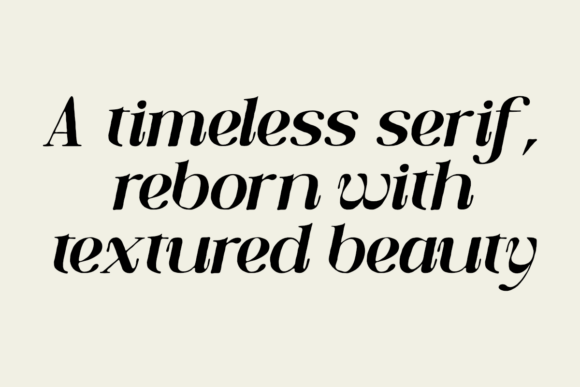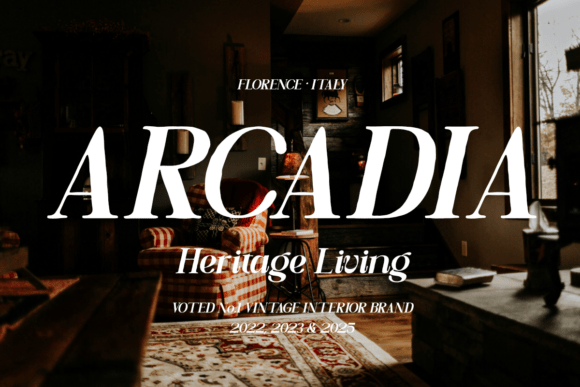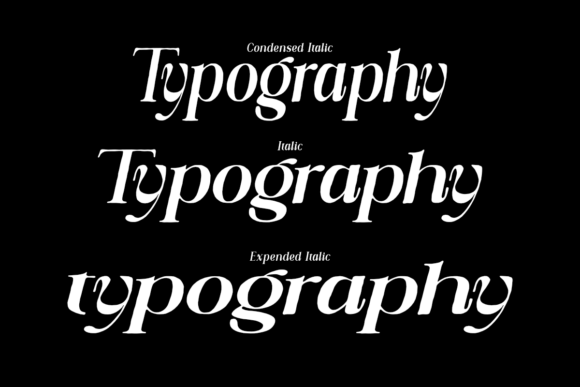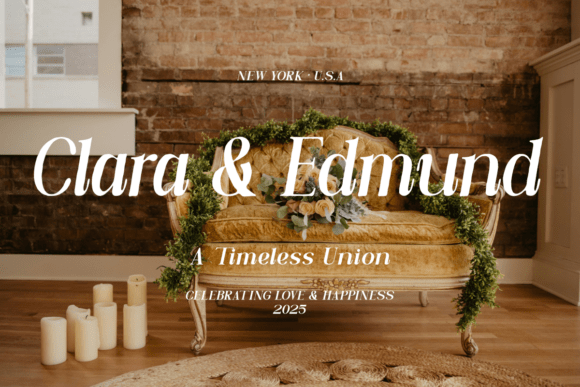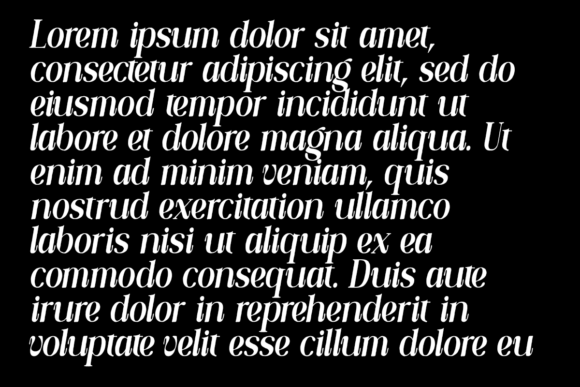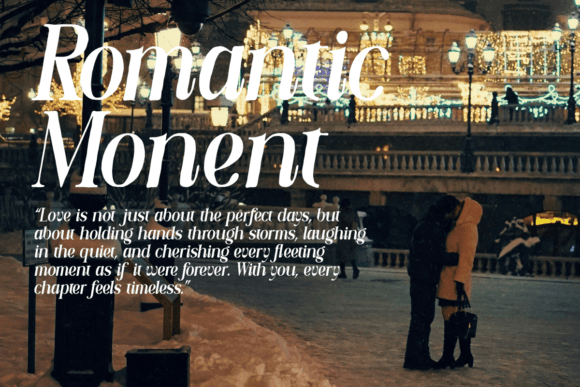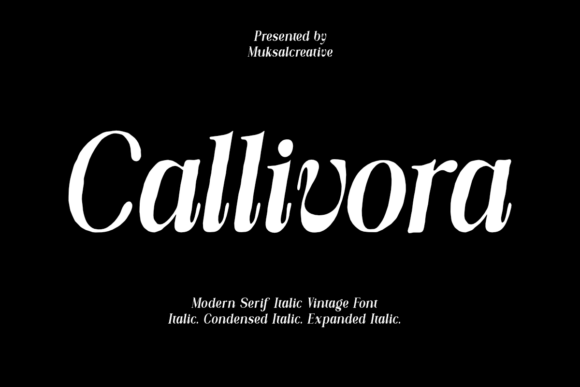
Introducing Callivora Italic Font: Elevate Your Designs with Elegance and Timeless Beauty
Are you searching for a font that exudes elegance, warmth, and a touch of nostalgia? Look no further than Callivora, a stunning textured italic serif font designed to bring sophistication and artistry to your branding projects. With its smooth curves, hand-drawn textured details, and classic-meets-contemporary design, Callivora is the perfect choice for designers and crafters seeking to add a touch of timeless beauty to their work.
The Inspiration Behind Callivora
Callivora’s design is rooted in the desire to evoke a sense of romantic nostalgia while staying modern and versatile. The font’s creator aimed to craft a typeface that would capture the essence of vintage elegance while remaining relevant for today’s design trends. The result is a font that is both classic and contemporary, perfect for a wide range of design applications.
Key Features of Callivora Font
So, what makes Callivora font so special? Here are some of its key features:
- Lively Character: Subtle textures add depth and authenticity, giving your words a more emotional and handcrafted feel.
- Classic Meets Contemporary: Elegant serif forms paired with italic flair capture a vintage spirit while remaining relevant for today’s design trends.
- Versatile Use: Ideal for wedding invitations, luxury branding, editorial layouts, packaging, vintage posters, and artistic social media quotes.
Why Choose Callivora Font?
With Callivora font, you can elevate your brand’s visual identity and add a touch of sophistication to your designs. Here are just a few reasons why designers and crafters love Callivora:
- Unique Texture: Callivora’s hand-drawn textured details give your designs a distinctive, handcrafted feel that sets them apart from the crowd.
- Timeless Elegance: The font’s classic serif forms and elegant lines ensure that your designs will remain timeless and stylish for years to come.
- Versatility: Callivora font is perfect for a wide range of design applications, from wedding invitations and luxury branding to editorial layouts and packaging.
- Pair with Other Fonts: Callivora font pairs beautifully with other serif and sans-serif fonts. Experiment with different combinations to find the perfect look for your design.
- Play with Texture: Callivora’s textured details can add depth and interest to your designs. Experiment with different texture combinations to find the perfect look.
- Use for Headings and Body Text: Callivora font is perfect for both headings and body text. Use it to create visually appealing layouts that draw the reader in.
In conclusion, Callivora Italic Font is a stunning textured italic serif font that is perfect for designers and crafters seeking to add a touch of elegance and timeless beauty to their work. With its smooth curves, hand-drawn textured details, and classic-meets-contemporary design, Callivora is sure to become a favorite in your font collection. So why wait? Download Callivora font today and start elevating your designs with its unique texture and timeless elegance!
- Style: Textured italic serif font